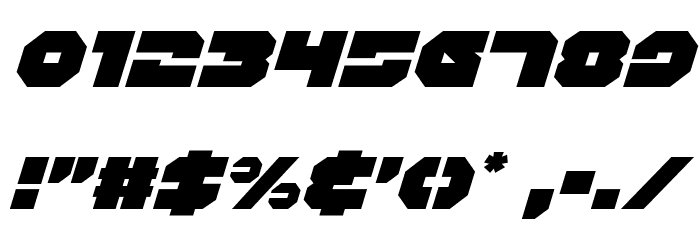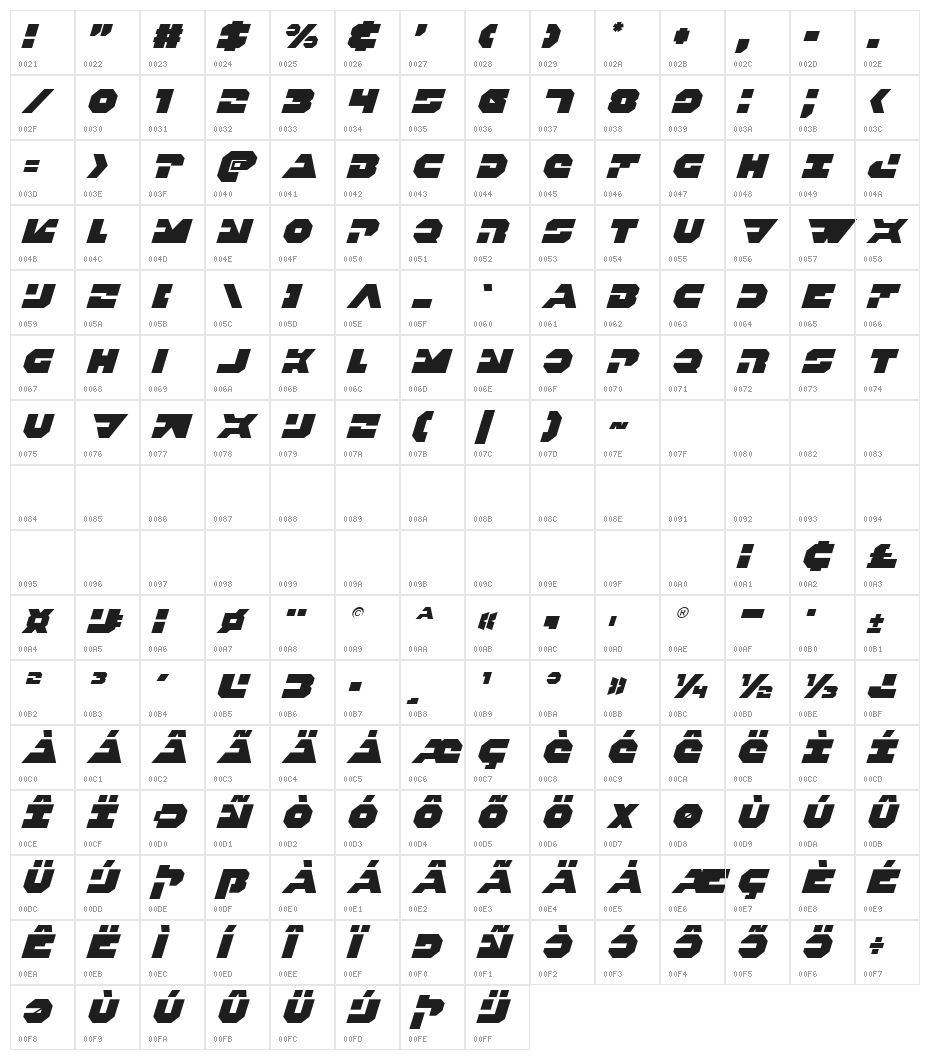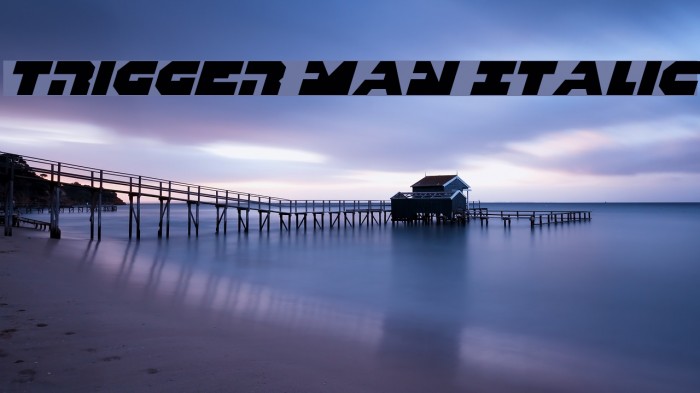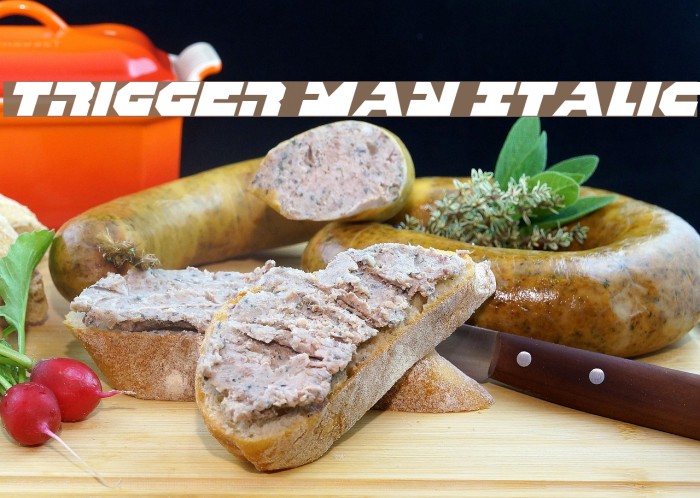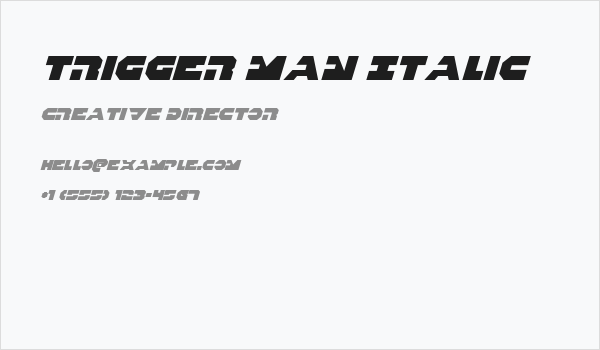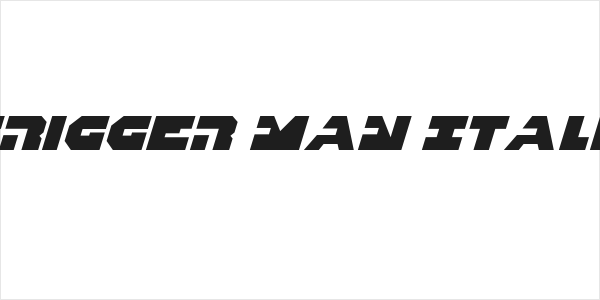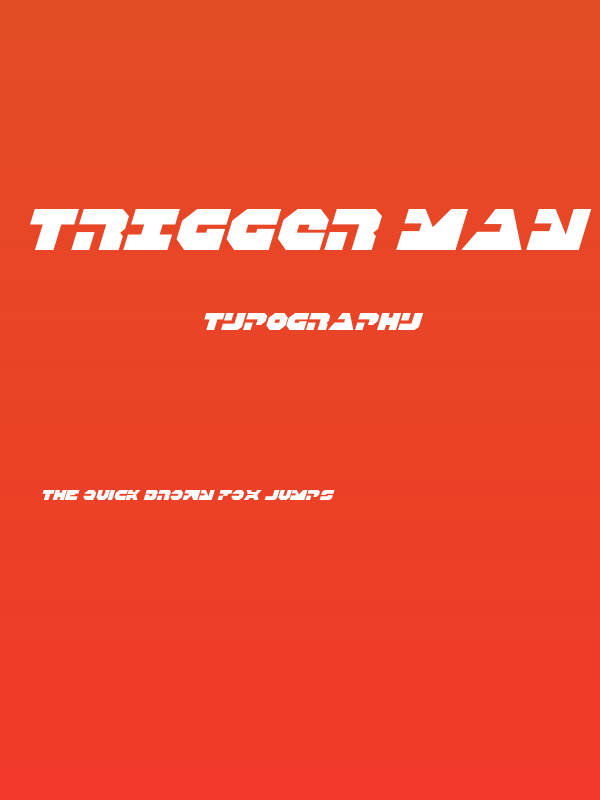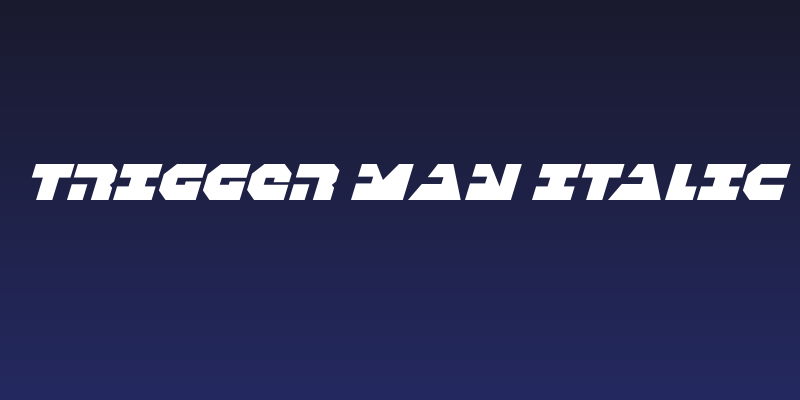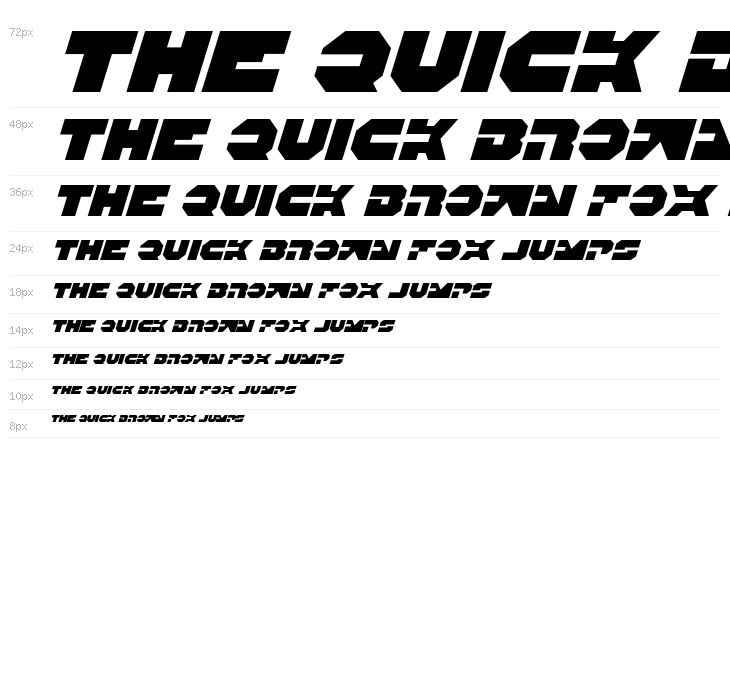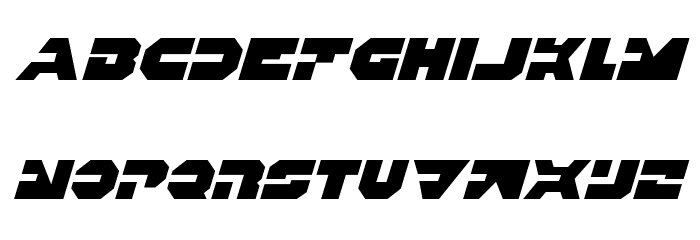
Trigger Man Italic Font
Trigger Man Italic Description
This font features a bold and angular design with a futuristic and dynamic appearance. The characters are heavily stylized with sharp edges and a slanted orientation, giving the font a sense of motion and energy. The uppercase and lowercase letters maintain a consistent geometric structure, while the numerals and special characters complement the overall aesthetic. The font's unique style makes it stand out, suitable for projects that require a modern and edgy look.
Proposed ProjectsIdeal for video game titles, sci-fi movie posters, tech branding, and edgy graphic designs.